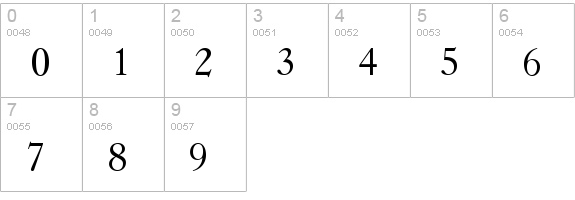
Caslon 540 Font Details
Caslon 540 is a classic serif font that exudes elegance and sophistication. With its refined letterforms and graceful curves, this timeless typeface is perfect for adding a touch of traditional charm to any design project. The stately serifs and balanced proportions of Caslon 540 make it a versatile choice for a wide range of applications, from editorial layouts to branding and packaging. What sets Caslon 540 apart is not only its timeless aesthetic but also the fact that it is available for free download at FontsMarket.com. This means that you can easily access this beautiful font and use it in your projects without any cost. Whether you are a seasoned designer looking for a reliable serif typeface or a novice searching for a classic font to elevate your work, Caslon 540 is an excellent choice that won't break the bank. Download it for free today and add a touch of sophistication to your designs with this exquisite typeface.